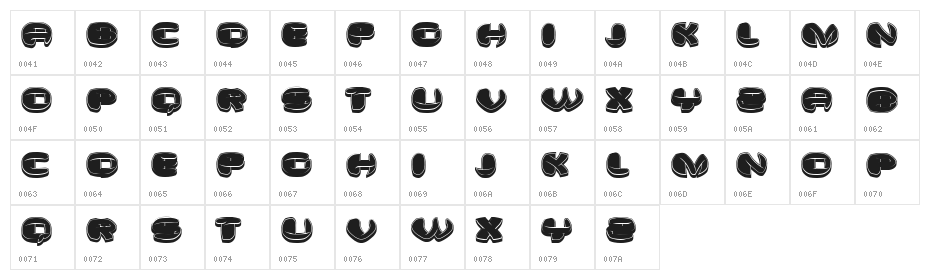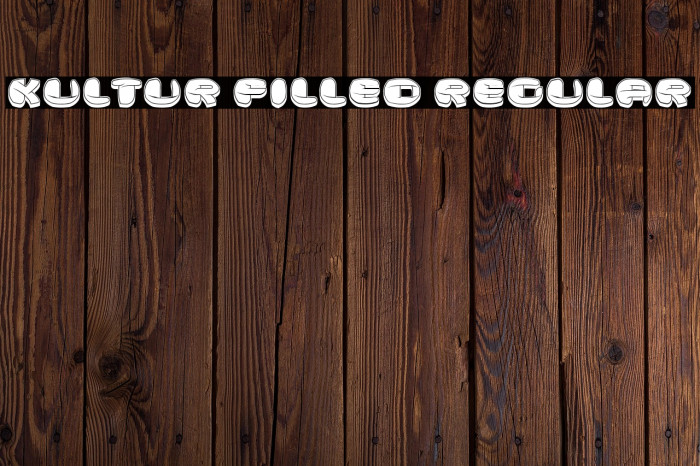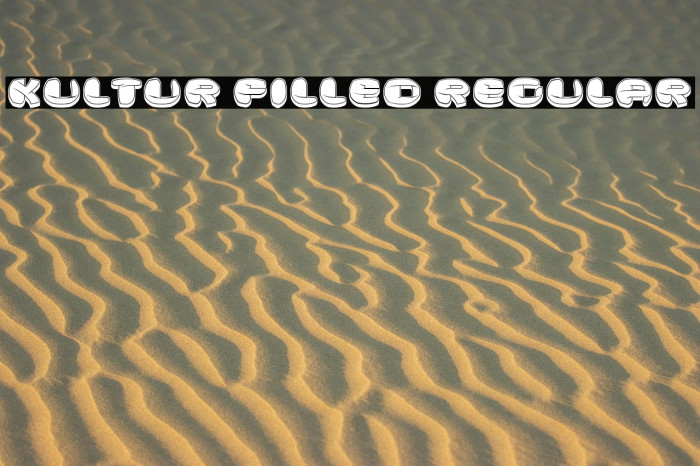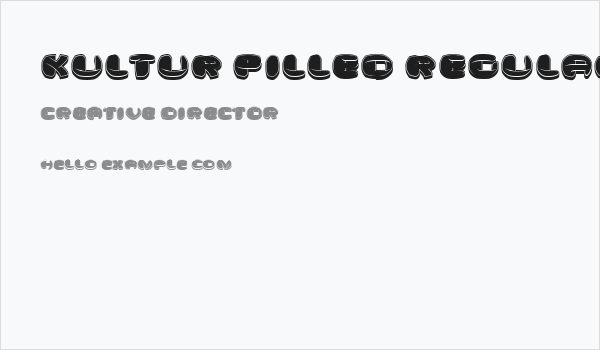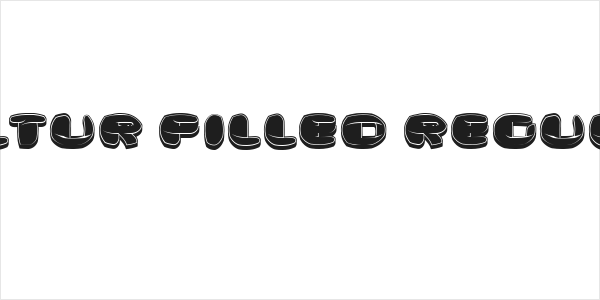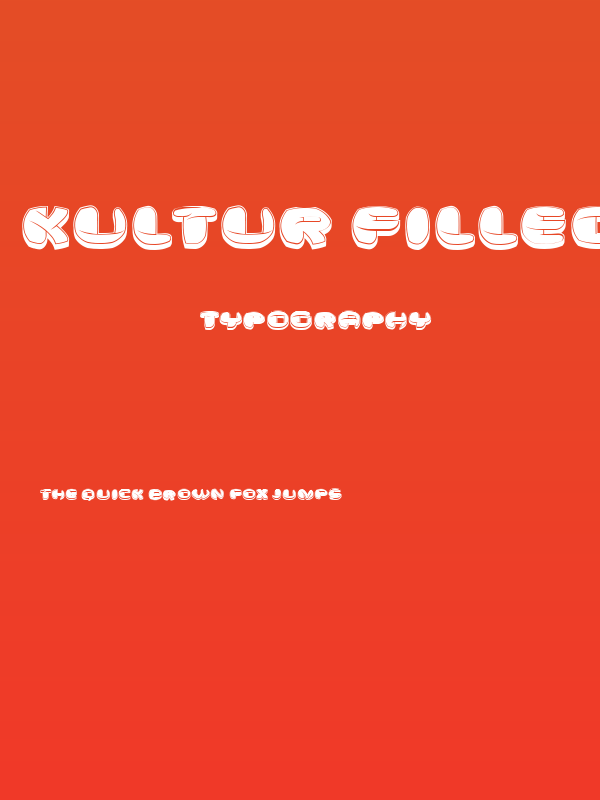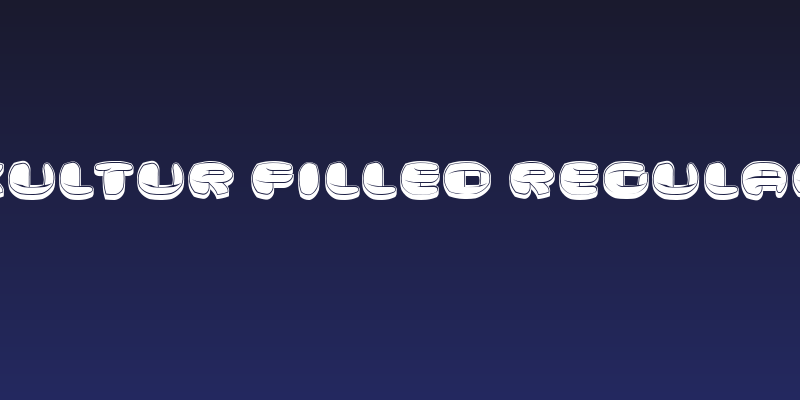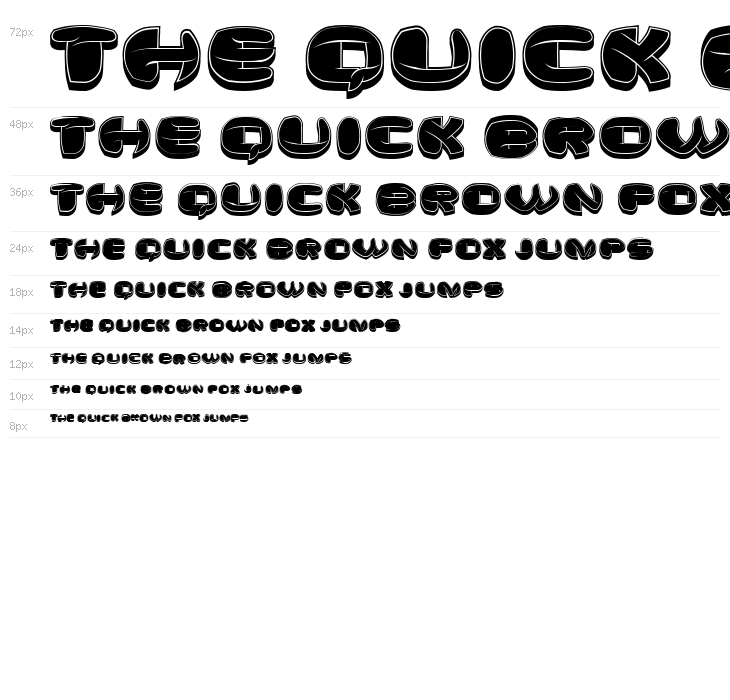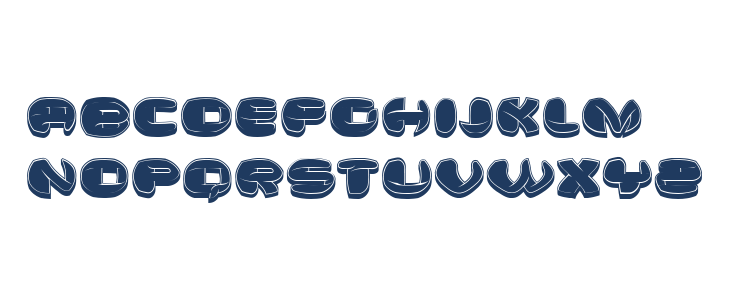
Kultur Filled Regular Font
Kultur Filled Regular Description
This font features a bold, filled design with a modern and playful aesthetic. The characters are rounded with a thick outline, creating a striking contrast between the filled interior and the outer edges. The letters are uniformly wide, giving the font a consistent and cohesive look. The style is decorative, making it suitable for eye-catching designs. The font's unique appearance is ideal for projects that require a bold statement, such as posters, headlines, or branding materials.
| Proposed Projects | Ideal for posters, headlines, branding, and any design requiring a bold statement. |